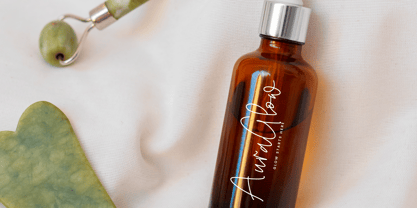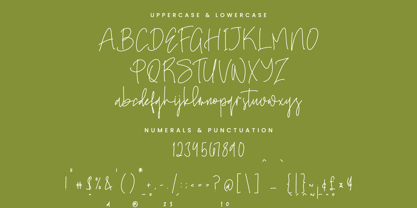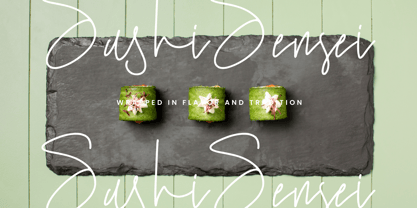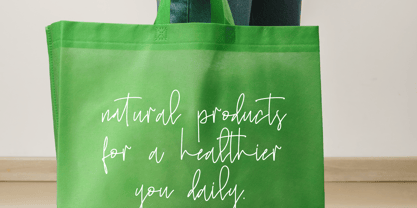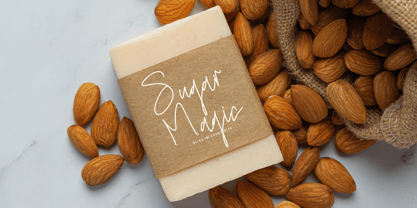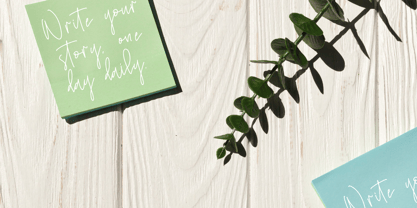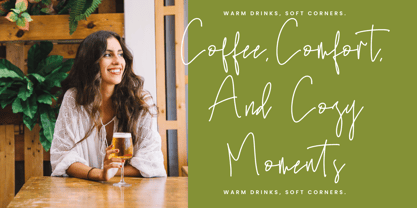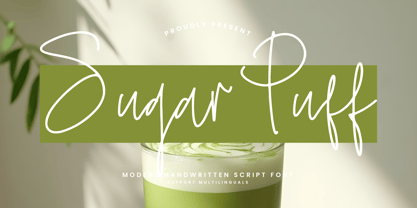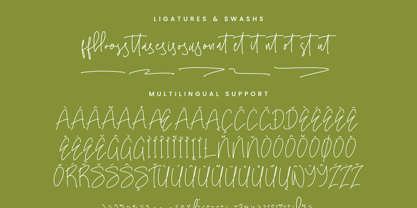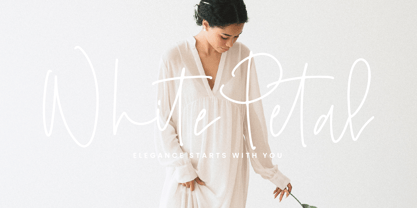
Sugar Puff
by Integritype
The Sugar Puff Font Family was designed by Dimas Alif Maulana and published by Integritype. Sugar Puff contains 2 styles and family package options.
Sugar Puff - Modern Handwritten Script Font, from Integritype Studio, perfect for any project like: logos, branding projects, homewares designs, product packaging, mugs, quotes, posters, shopping bags, t-shirts, covers books, business cards, invitation cards, greeting cards, labels, photography, watermarks, special events and all your other luxury projects that require a premium taste.